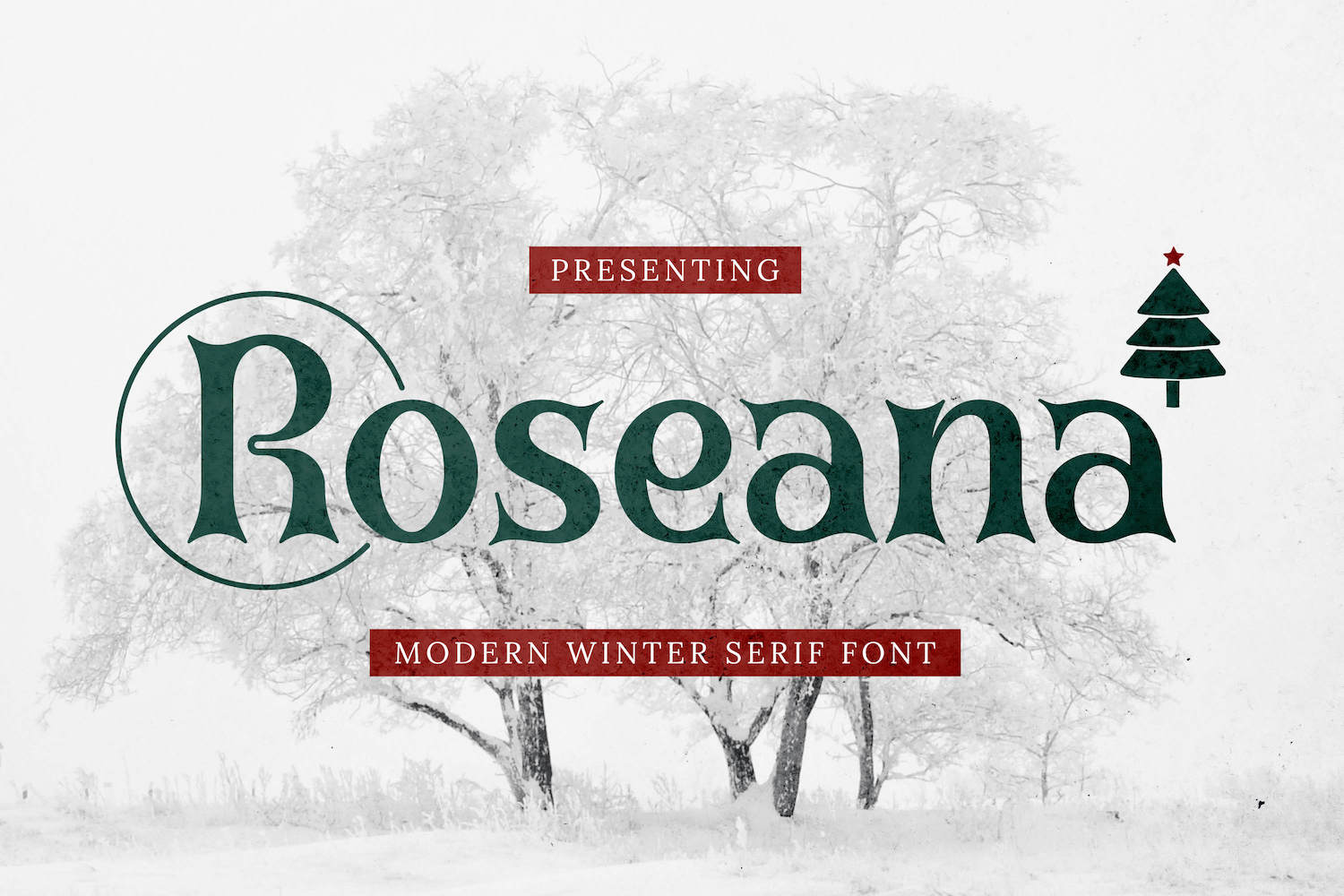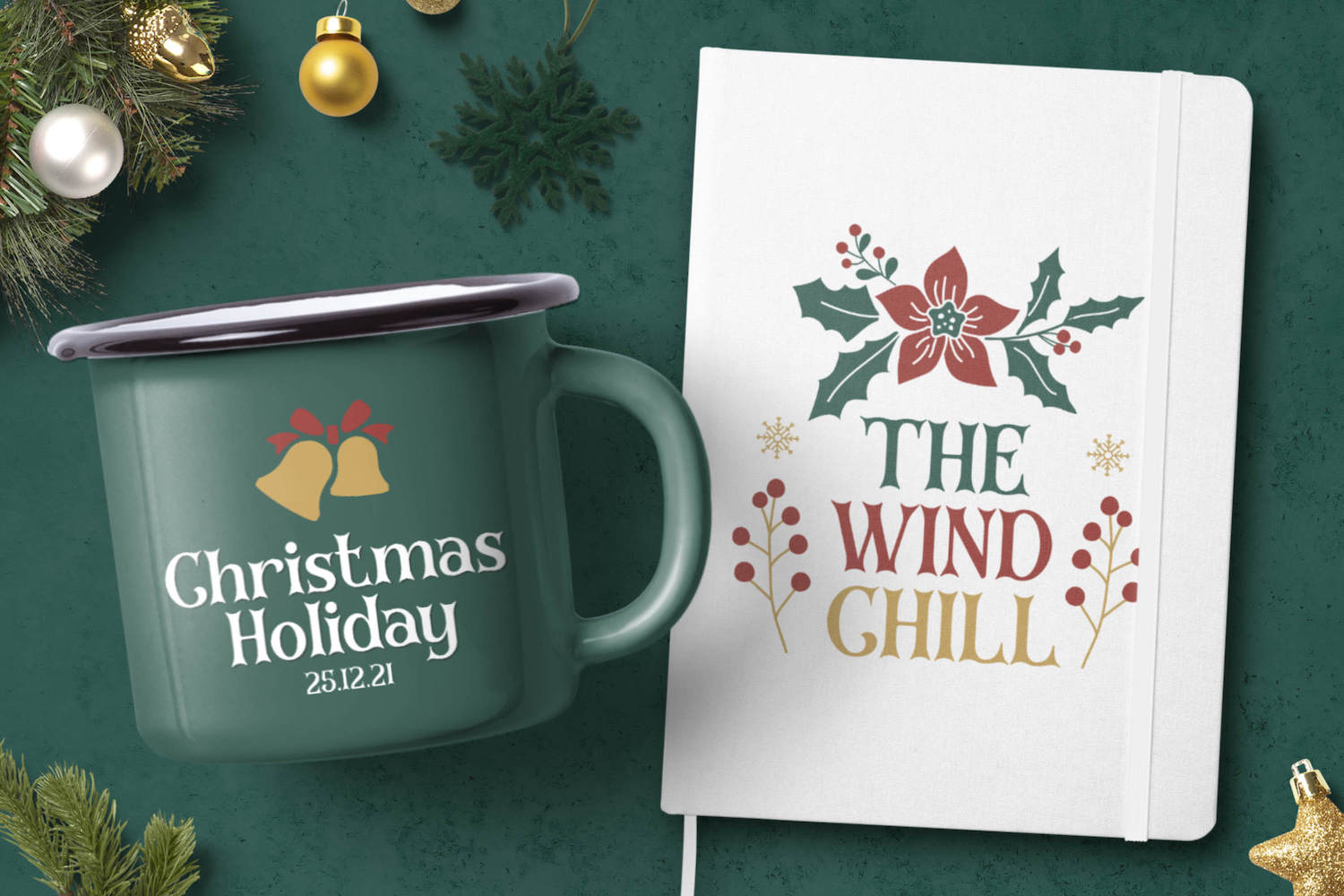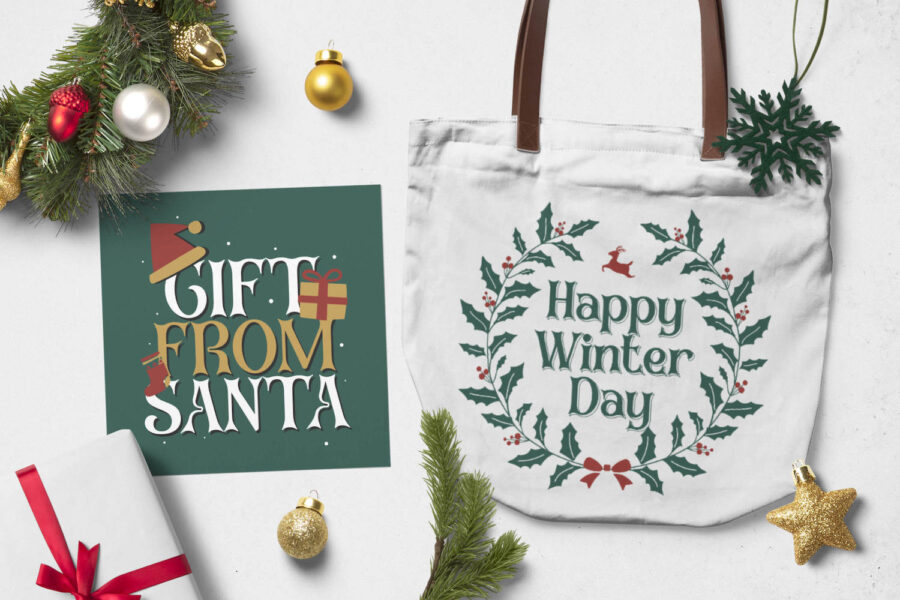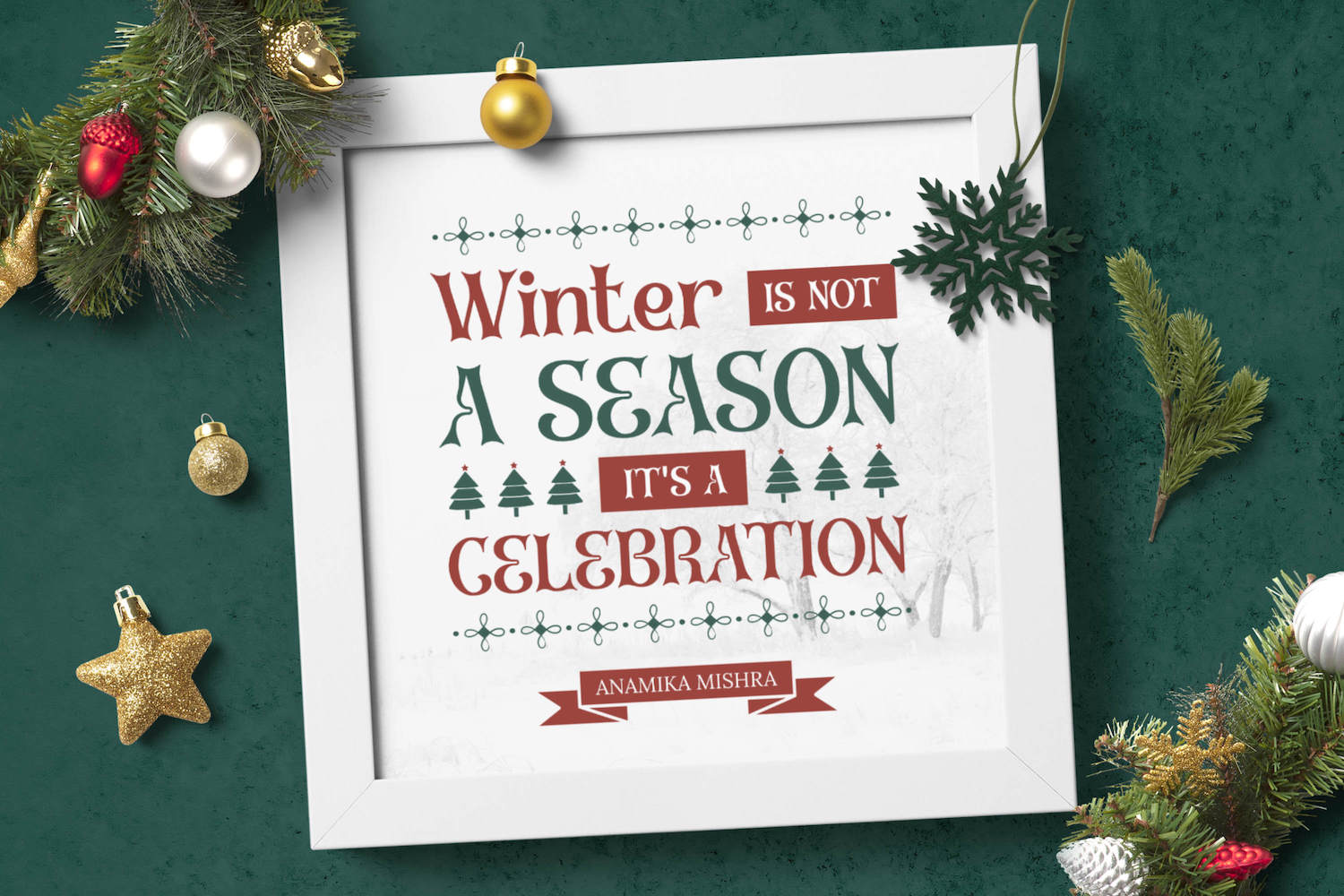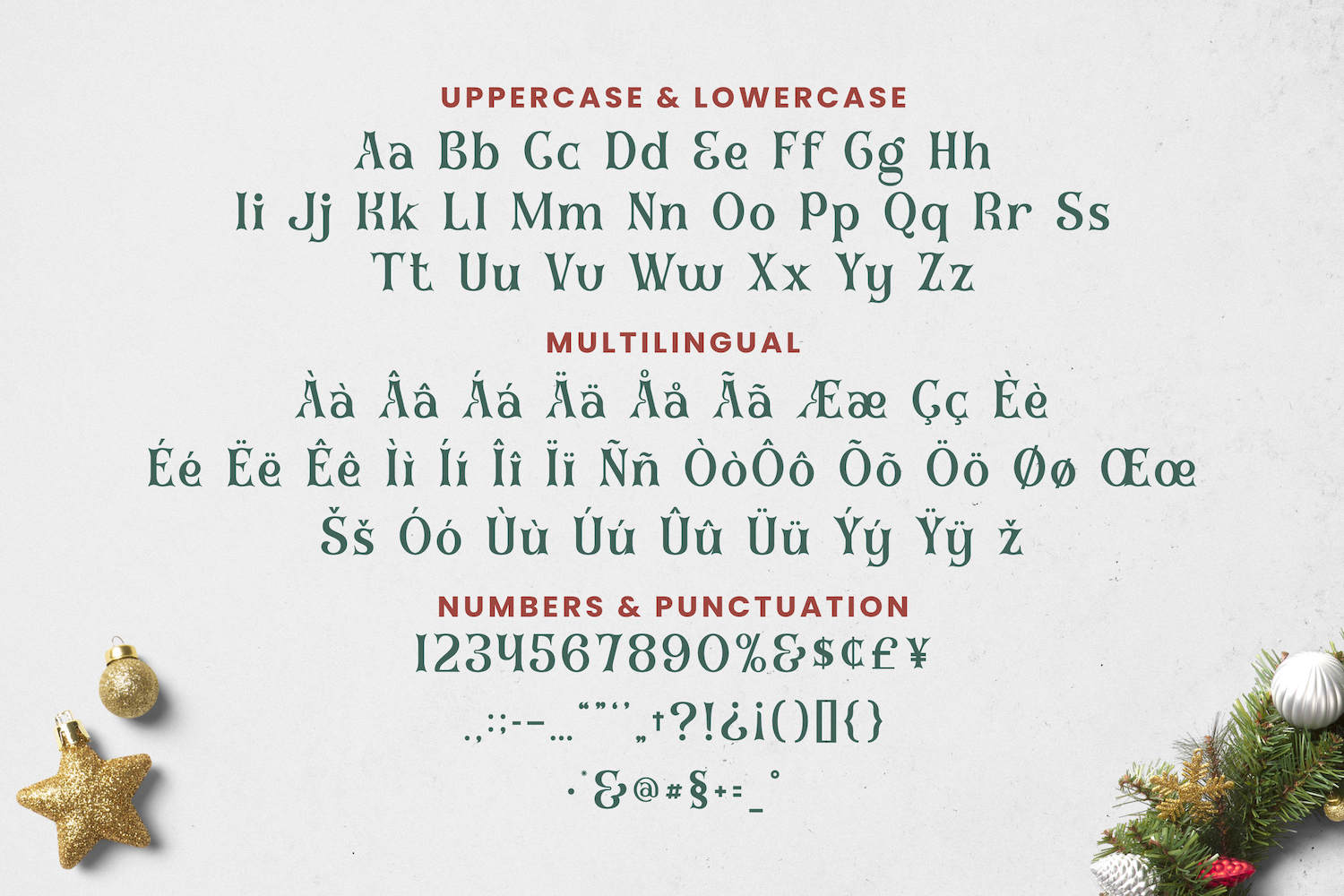
Roseana is a modern serif font infused with winter charm and a touch of festive elegance. Its sharp serifs and unique curves evoke the serene beauty of snowy landscapes, making it perfect for holiday cards, seasonal branding, winter quotes, and stylish packaging. The gentle balance between classic structure and whimsical details gives Roseana a versatile appeal.
With multilingual support, uppercase & lowercase letters, and a full range of punctuation, Roseana ensures flexibility across creative projects. Whether you’re designing winter merchandise, holiday decor, or a cozy seasonal campaign, Roseana adds a sophisticated and heartwarming flair to your typography collection.
Roseana